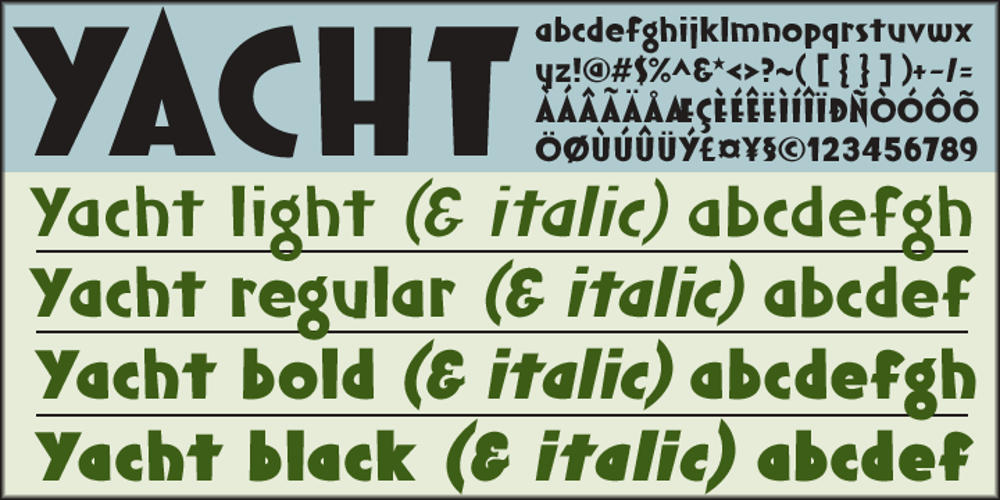
Yacht Font Family was designed by Alec Julien and published by Haiku Monkey. Yacht contains 8 styles and family package options. The Yacht family of fonts is based on 1930s hand-lettering for movie posters. Comes in four weights, each with italics, small caps, and a small supply of alternate glyphs.